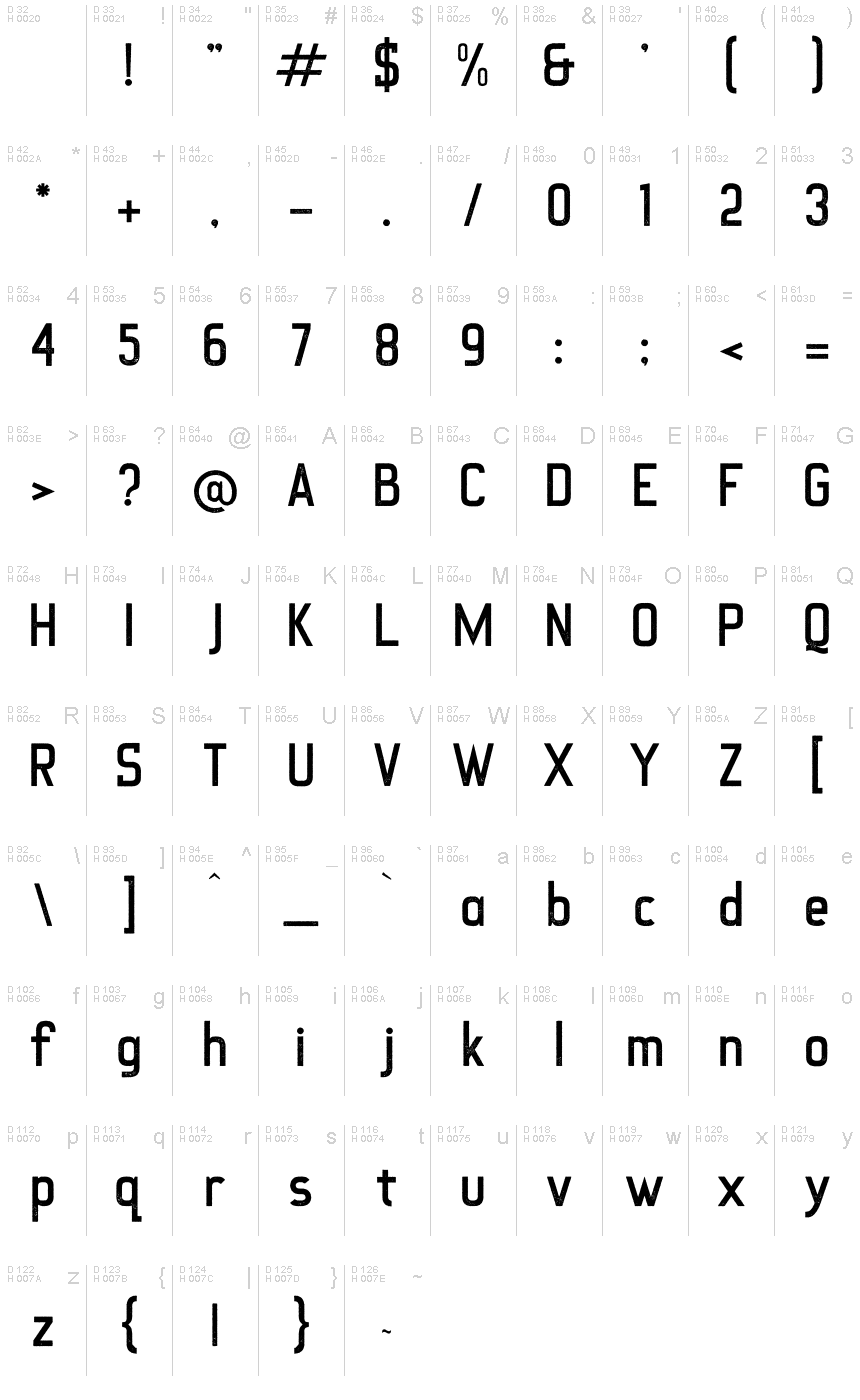
Jingadile
Jingadile, a captivating display font created by Storytype Studio, exudes a sense of rugged elegance. With its condensed width and bold, angular strokes, this typeface commands attention, effortlessly blending a touch of industrial grit with a refined, modern aesthetic. The intricate detailing and sharp edges give the font a distinct, almost hand-carved appearance, evoking a feeling of raw, untamed power. Jingadile's striking visual presence makes it an exceptional choice for attention-grabbing headlines, impactful branding, and eye-catching typographic designs.
Jingadile's versatility extends beyond its captivating appearance. Its condensed nature allows for versatile application, from brooding, dramatic compositions to sleek, minimalist layouts. This font's unique character lends itself seamlessly to a wide range of design contexts, from editorial spreads and packaging to posters and web interfaces, making it a valuable addition to any designer's toolkit.